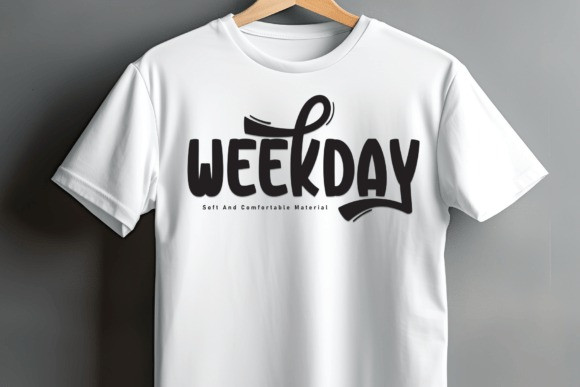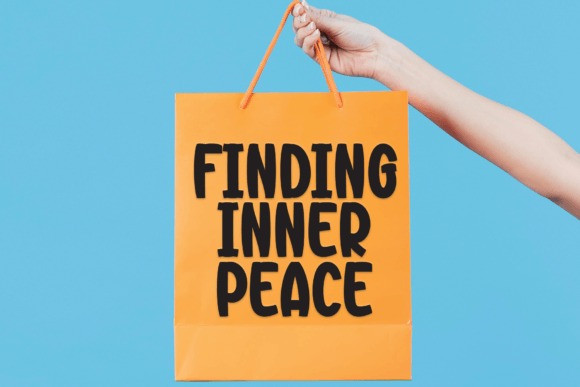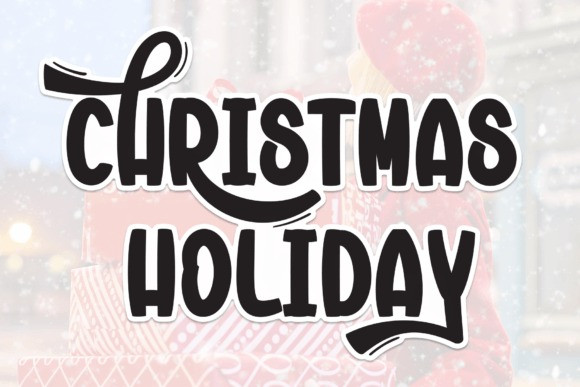
Christmas Holiday Playful Font
Christmas Holiday Playful Font is an adorable handwritten font. No matter the topic, this font will be an incredible asset to your fonts’ library, as it has the potential to elevate any creation.